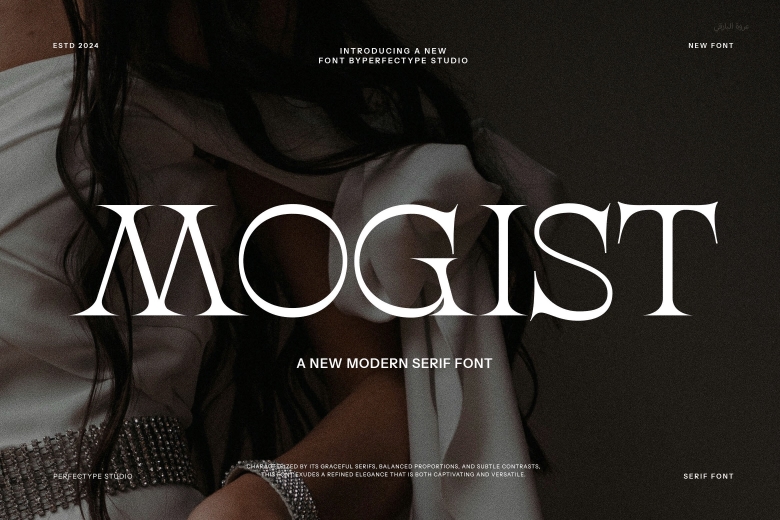
Mogist Font
Mogist is a stylish and clean typeface which is in the category of serif font. Further, it is clear and neat and is ideal to be used in elegant designs including invitations, logos and titles. The edges of the letters as well as the curves in the font strike a premium, and any form of text appears professionally polished.
Mogist Serif Font